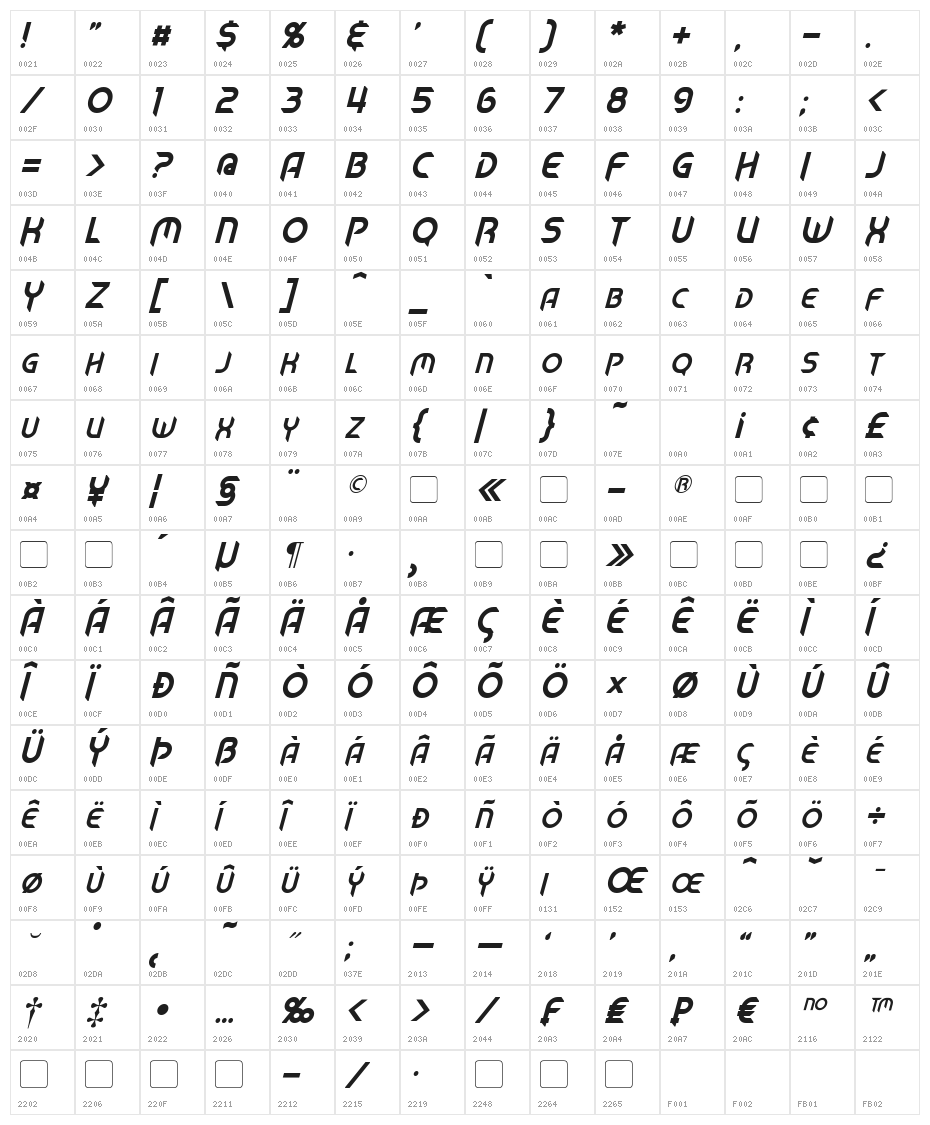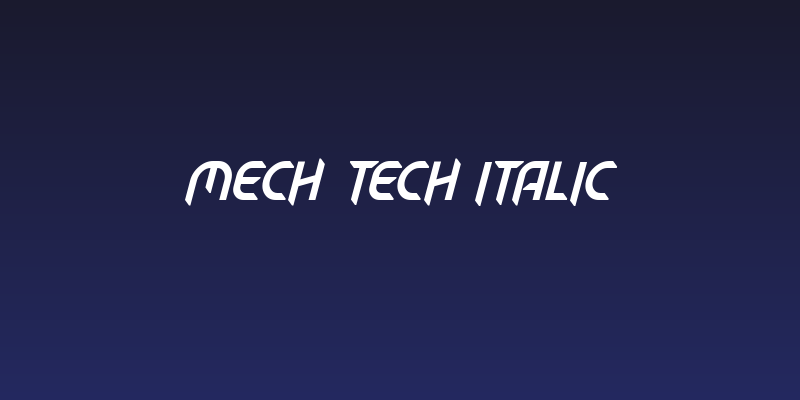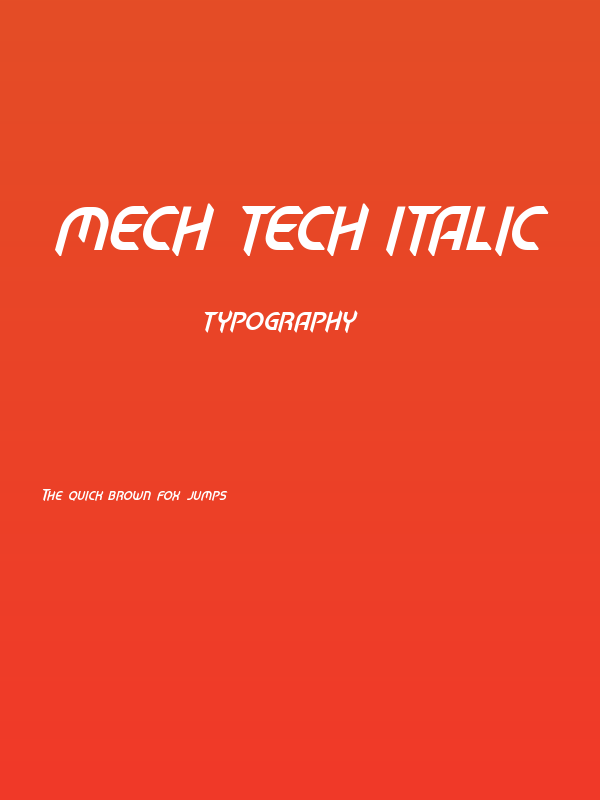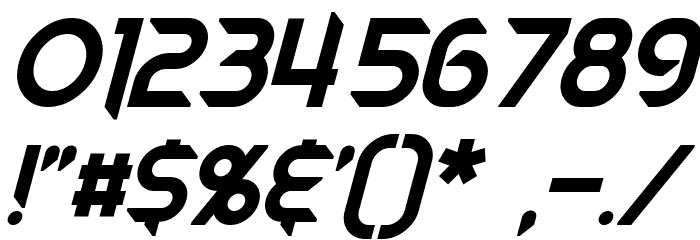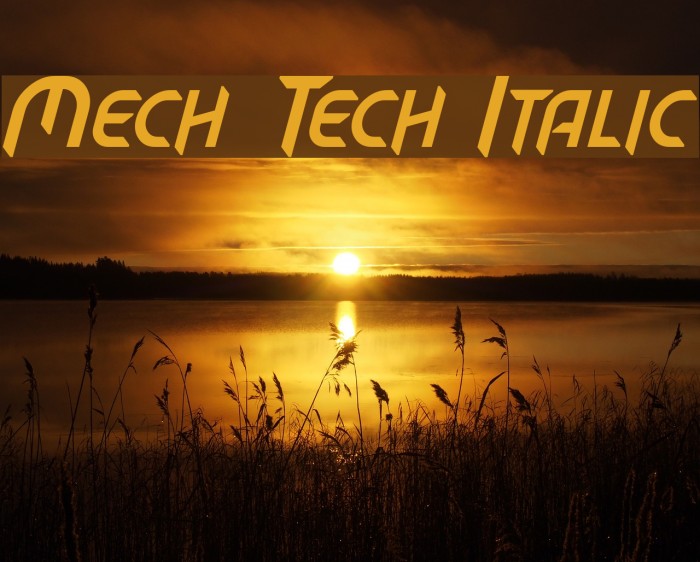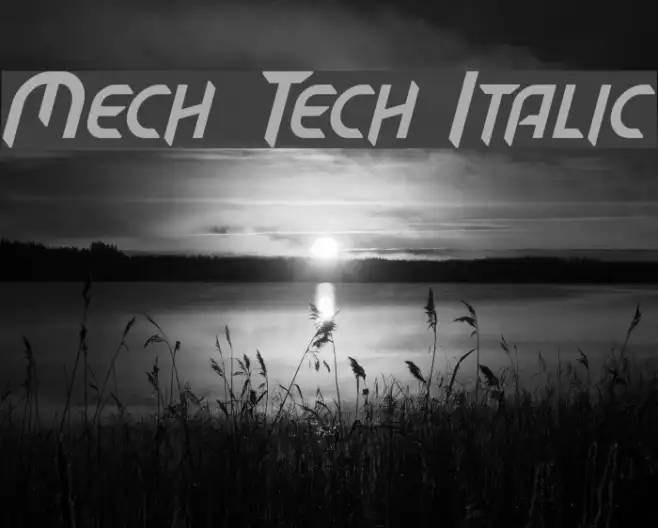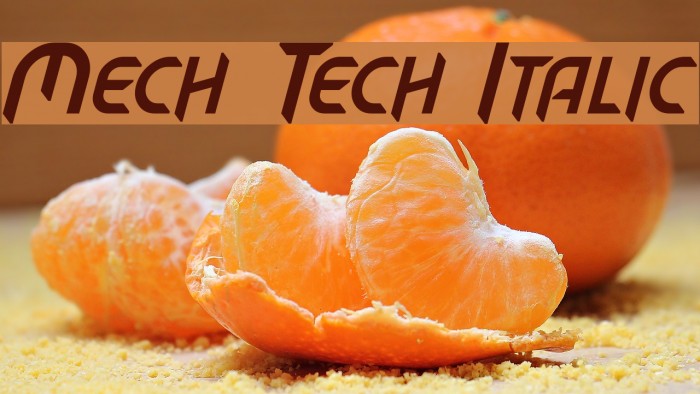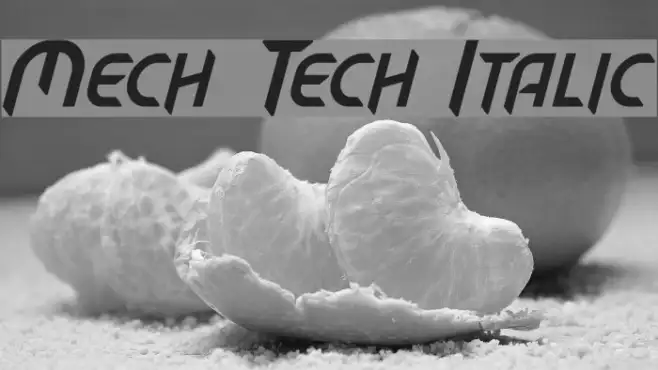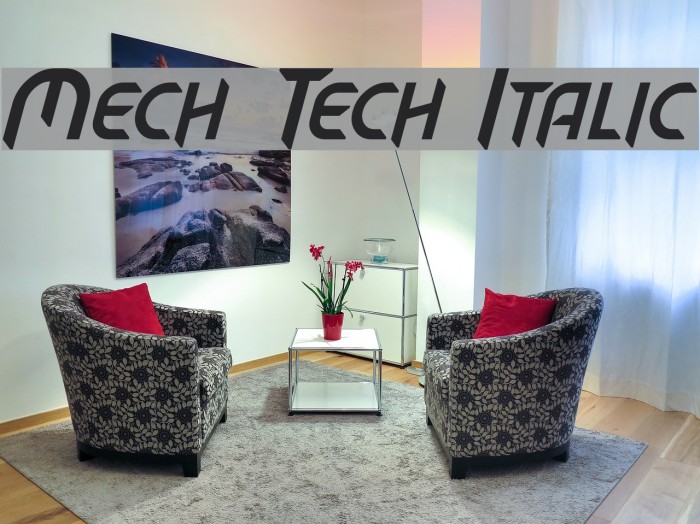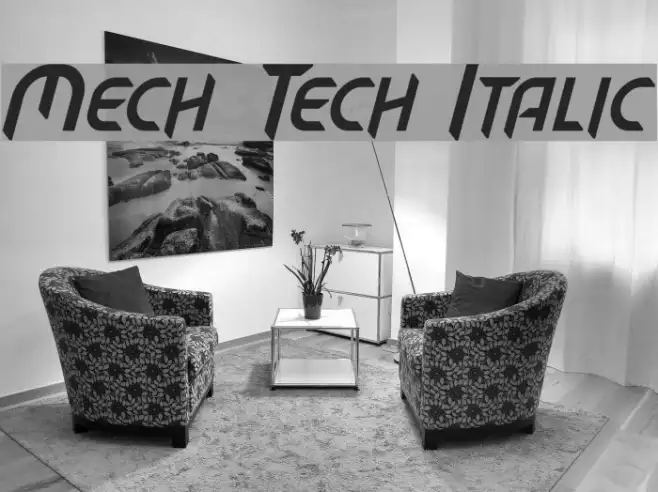
Mech Tech Italic Font
Mech Tech Italic Description
This font features a futuristic and mechanical design, characterized by sharp angles and a forward-leaning italic style. The letters are bold and dynamic, with a distinct geometric structure that conveys a sense of speed and technology. The uppercase and lowercase letters maintain a consistent style, enhancing readability while adding a unique flair. The numerals and special characters are crafted with the same attention to detail, ensuring a cohesive look across all text elements. This font is ideal for projects that require a modern and edgy appearance, making it suitable for tech-related branding, video game titles, or sci-fi themed designs.
| Proposed Projects | Ideal for tech branding, video game titles, sci-fi themes, and modern advertising. |